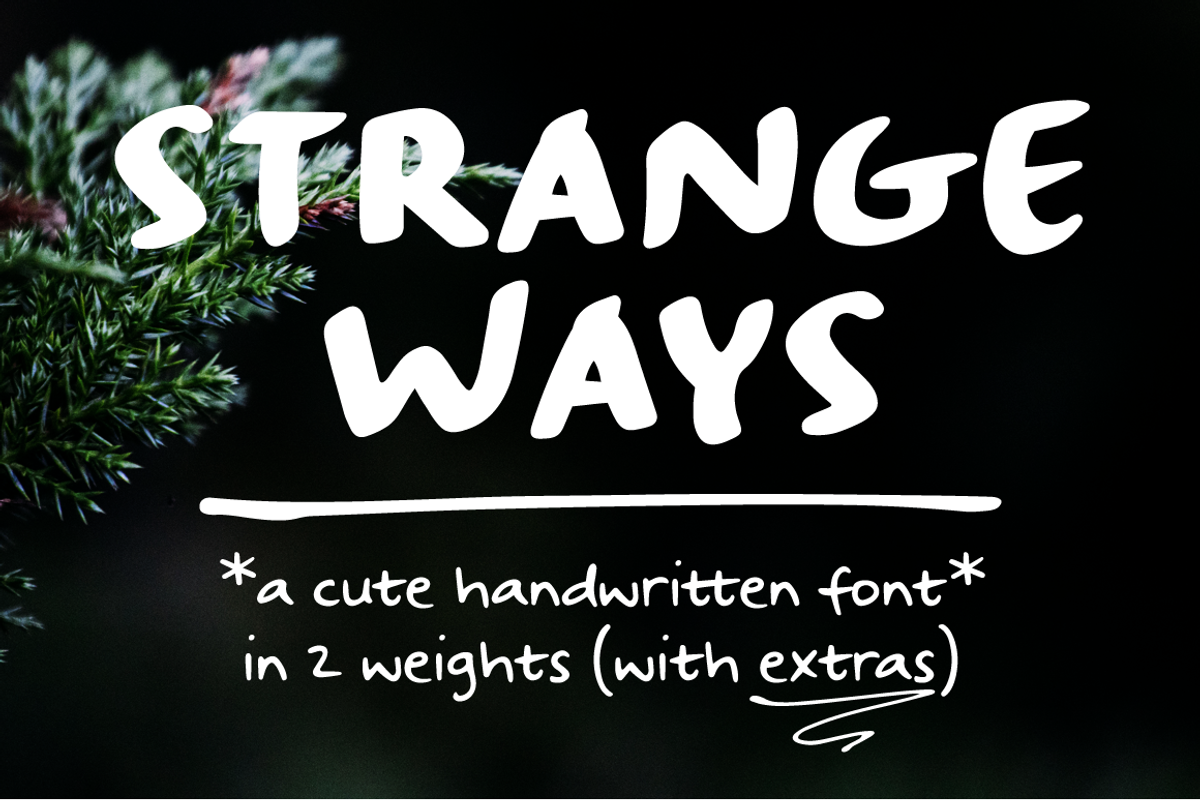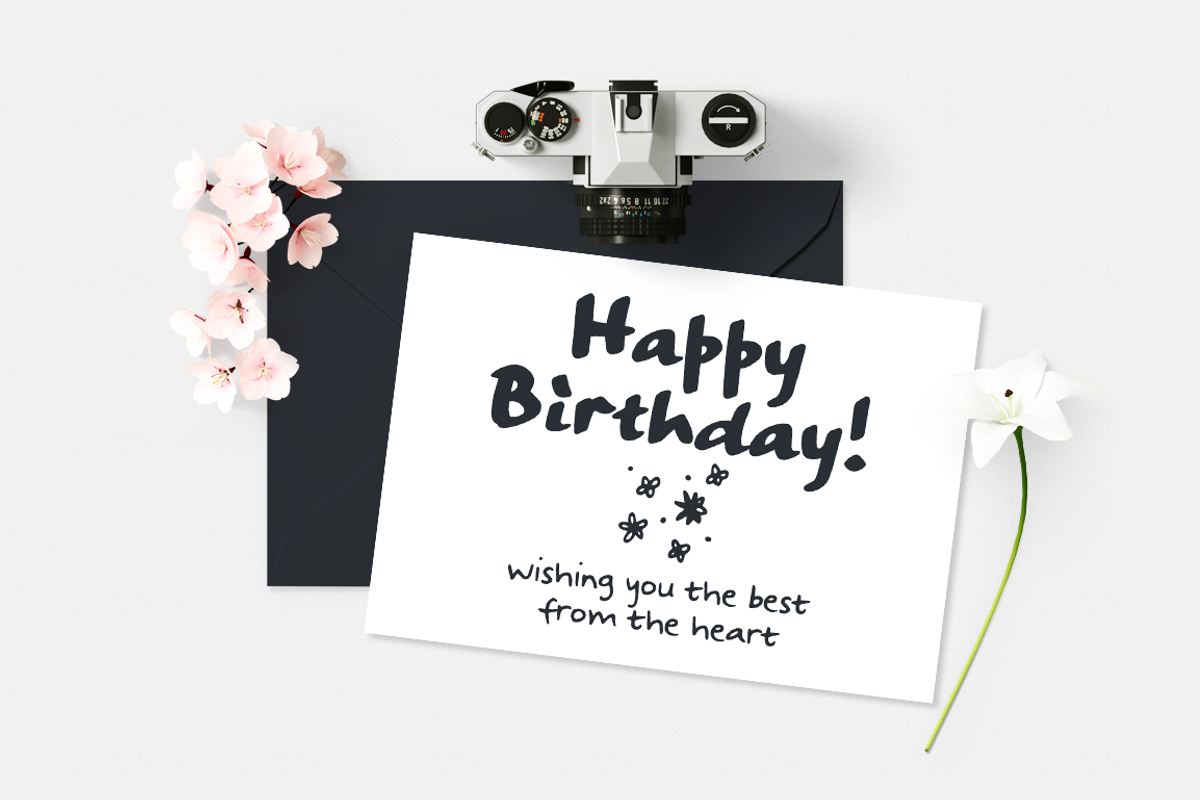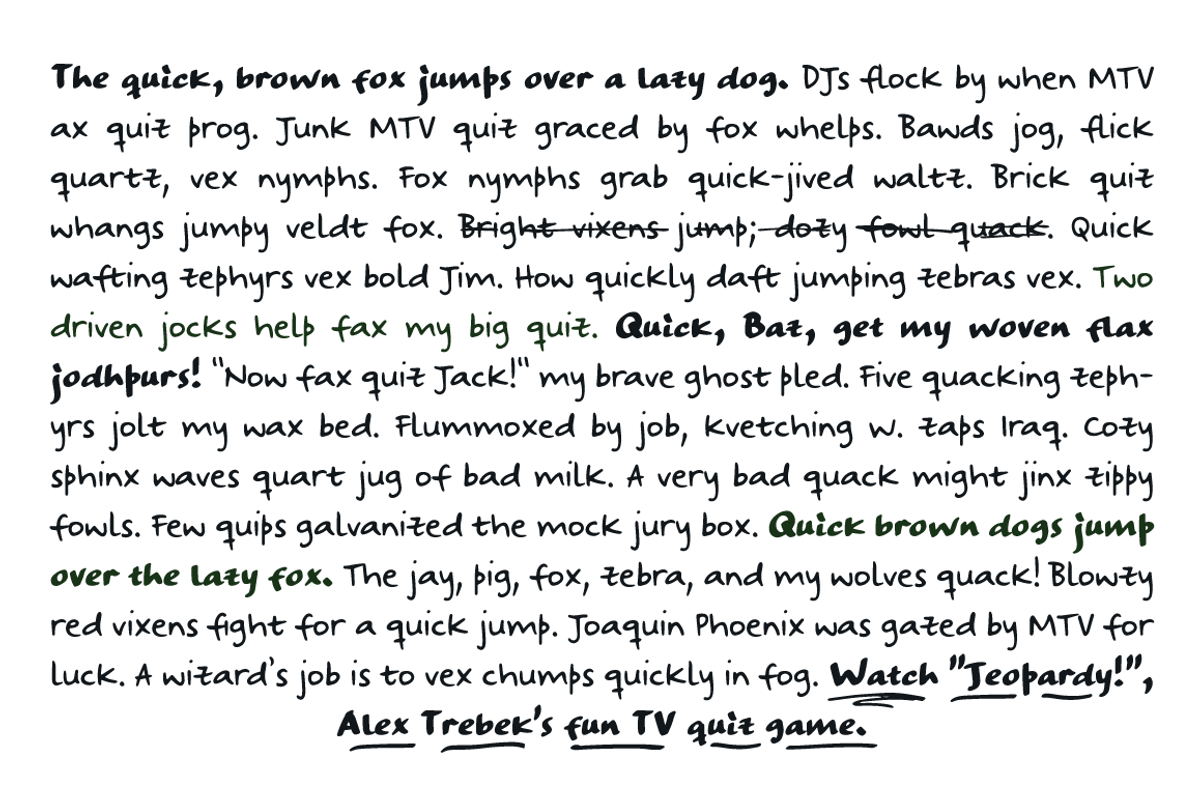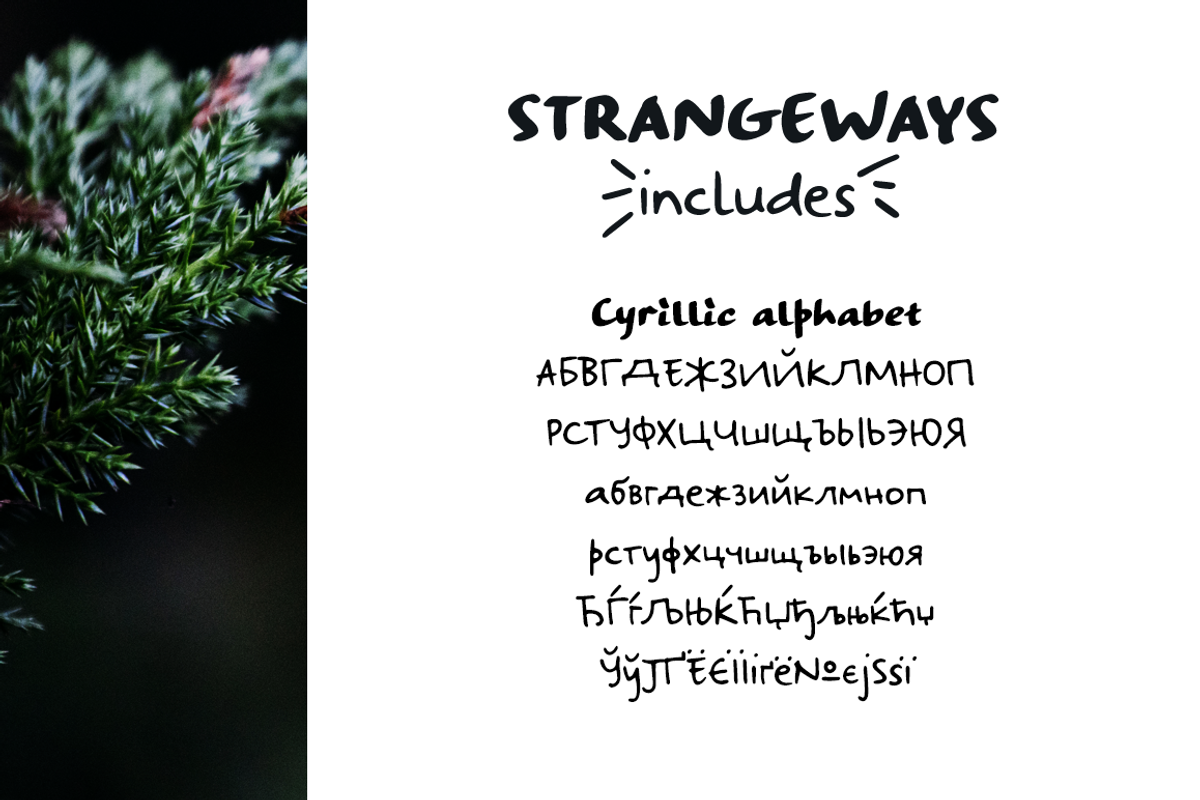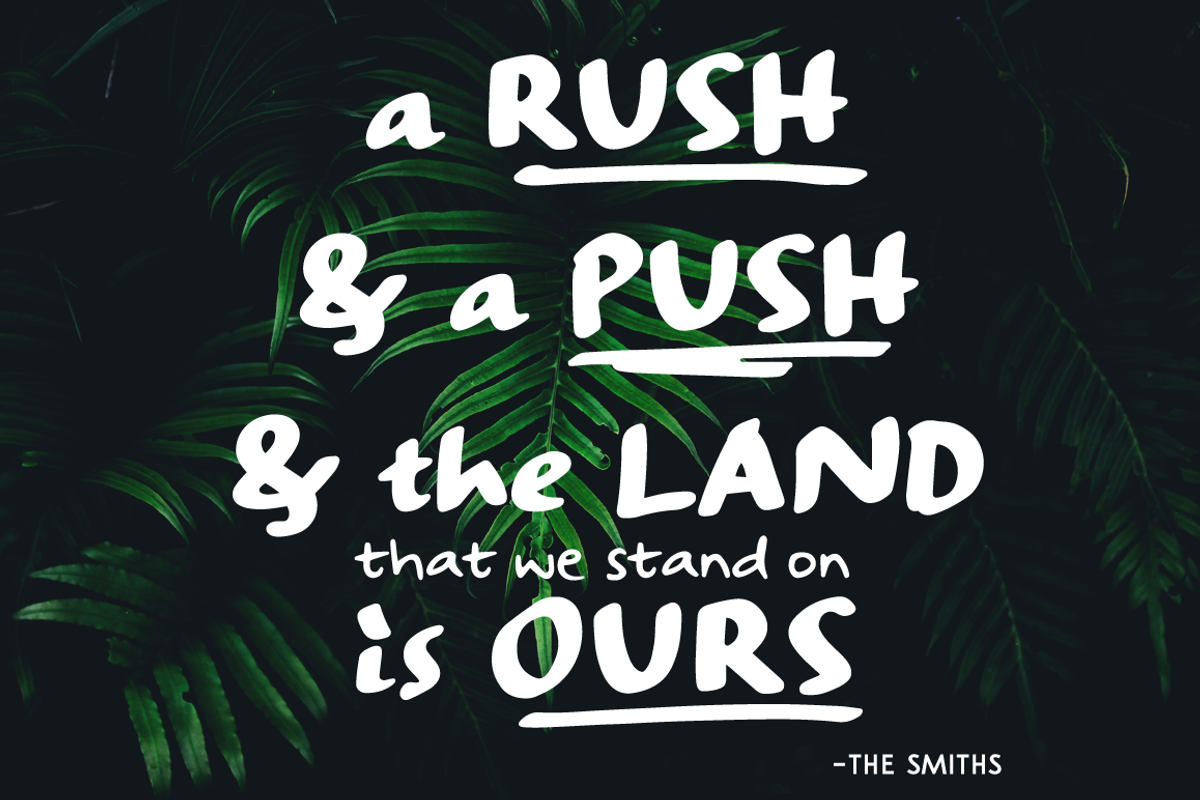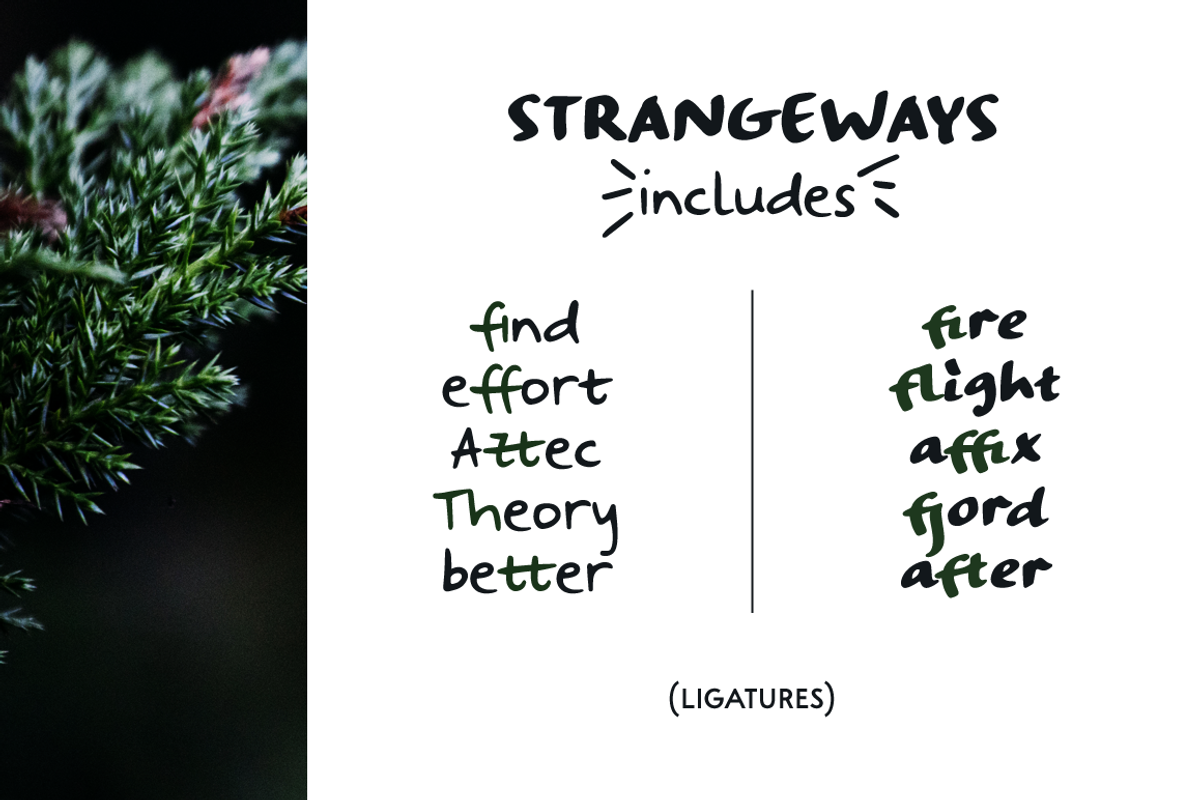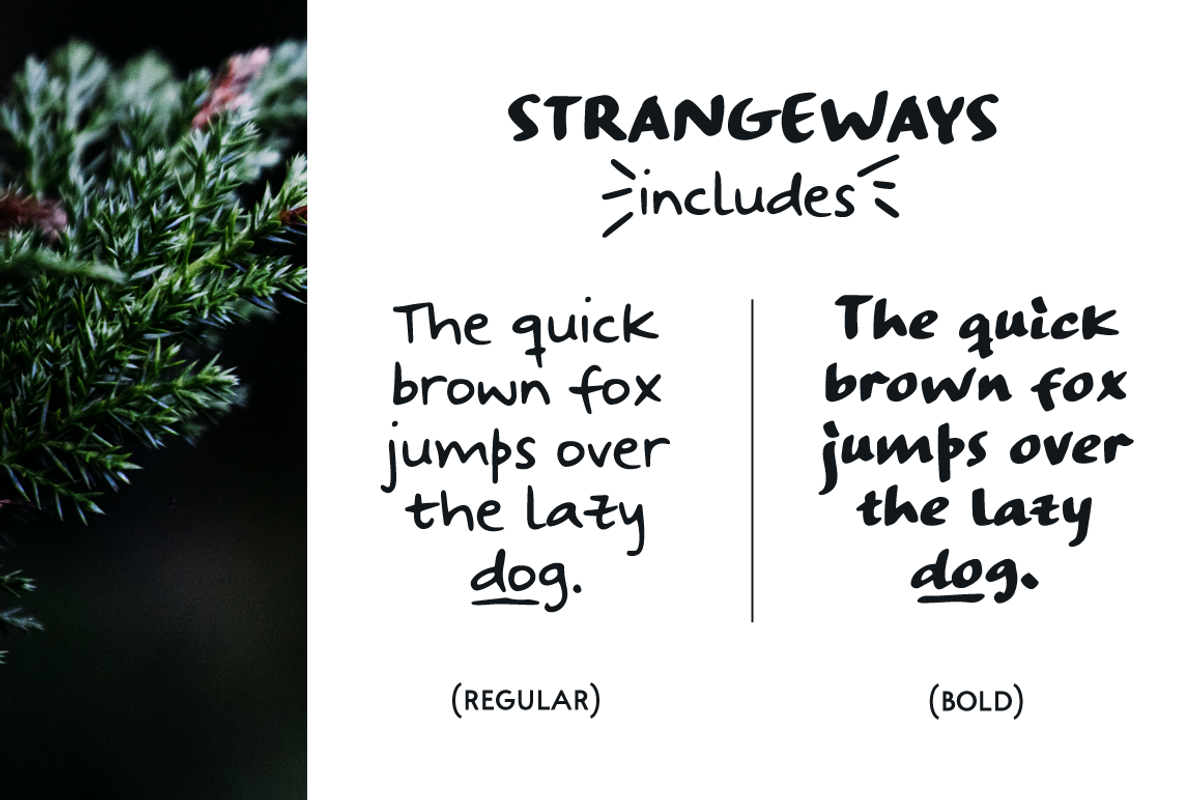
Strangeways handwritten sans font
Strangeways handwritten sans font by Ana's Fonts is a font selected for branding, posters, packaging, typography.
- Strangeways is a cute handwritten font in 2 weights: bold & italic, with: A-Z, a-z, 0-9, accents punctuation and symbols Ligatures Extra squ
- Cyrillic alphabet and extra accents It's great for any of your cute designs, in quotes, postcards, logos.
Why Strangeways handwritten sans font is worth a look
Strangeways handwritten sans font by Ana's Fonts fits naturally into Branding, posters, packaging, typography.